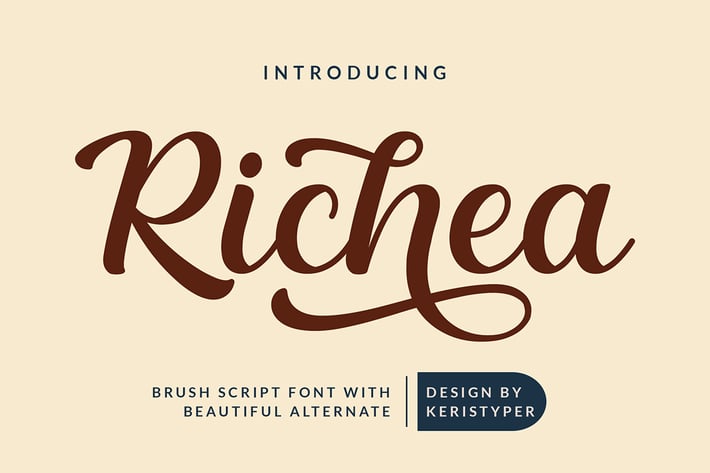
Richea Font
Richea is a casual script font, with a clean high contrast stroke, slanted and fun character. This type of font is perfectly made to be applied especially in logo, and the other various formal forms such as invitations, labels, logos, magazines, books, greeting/wedding cards, packaging, fashion, makeup, stationery, novels, labels, or any type of advertising purpose.